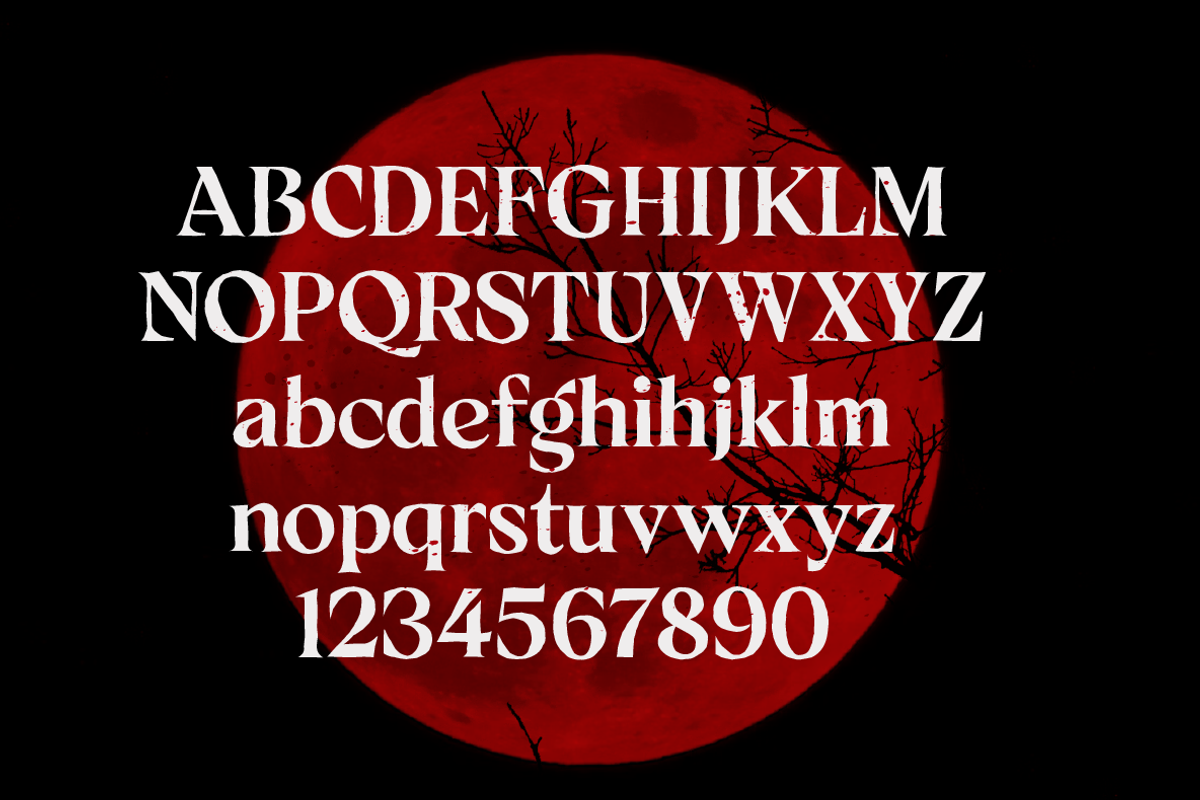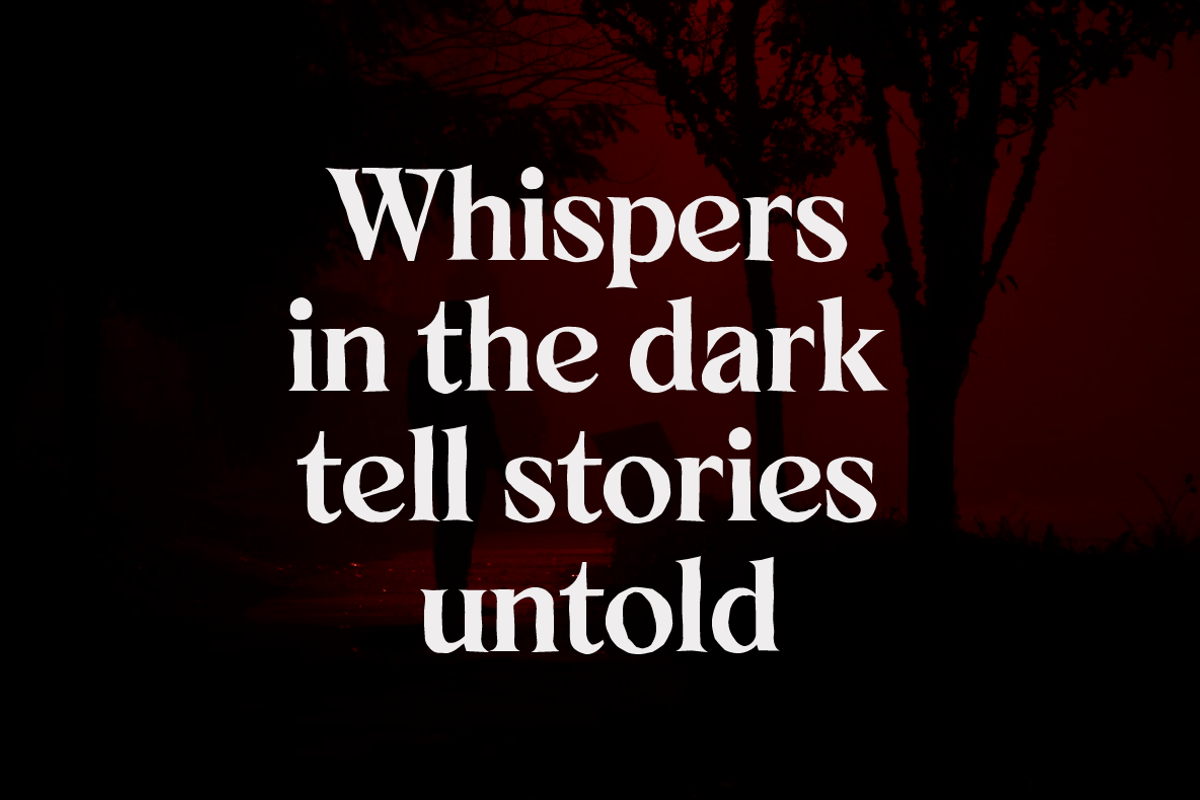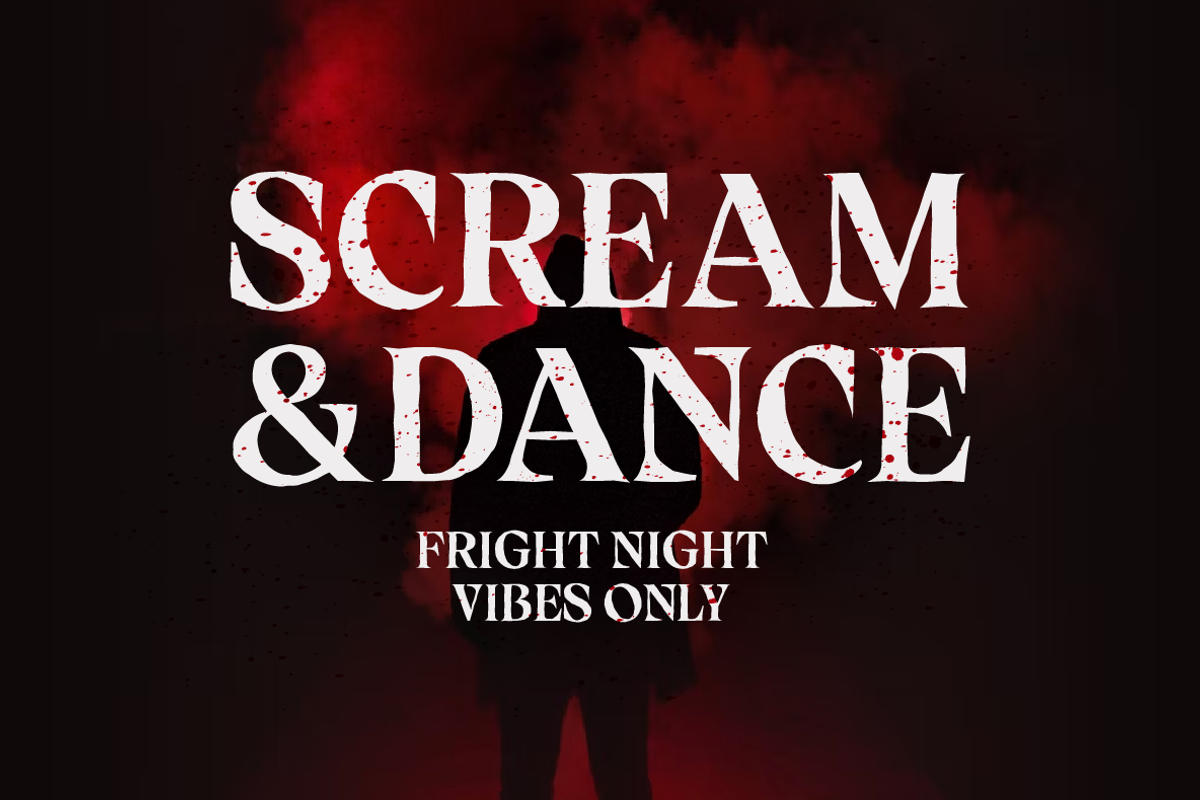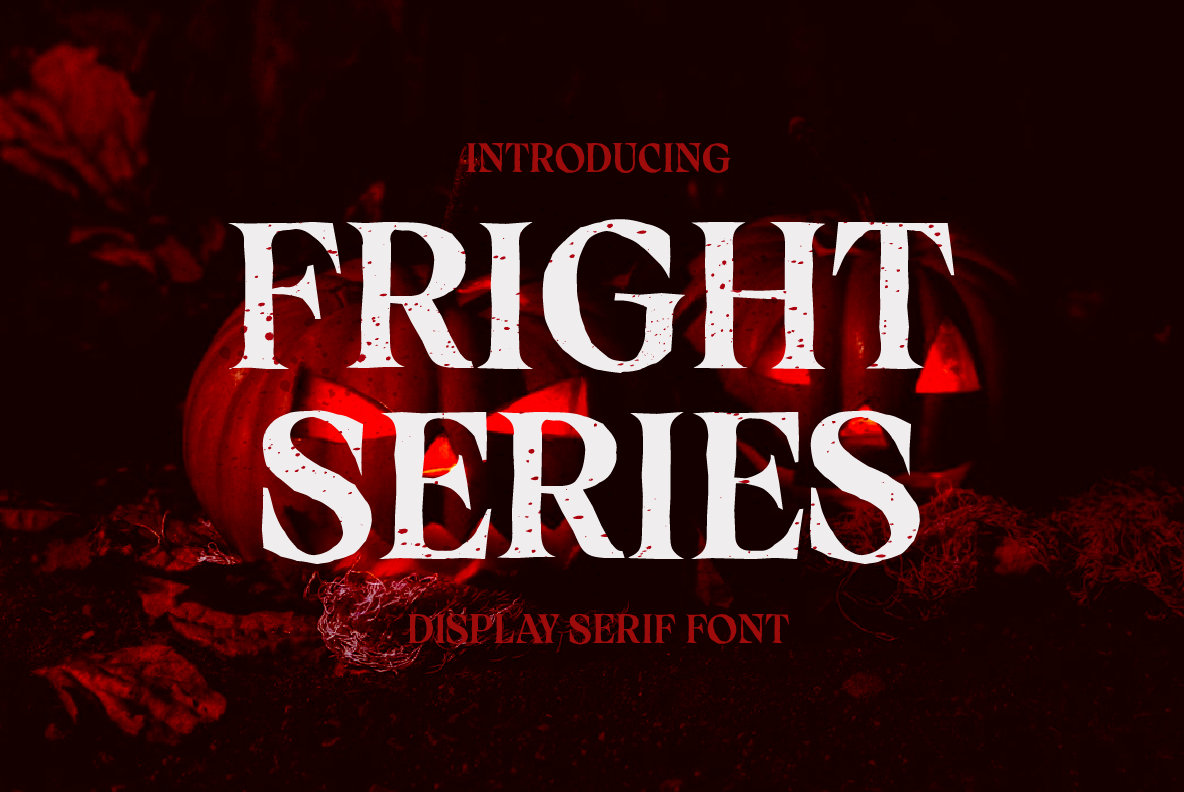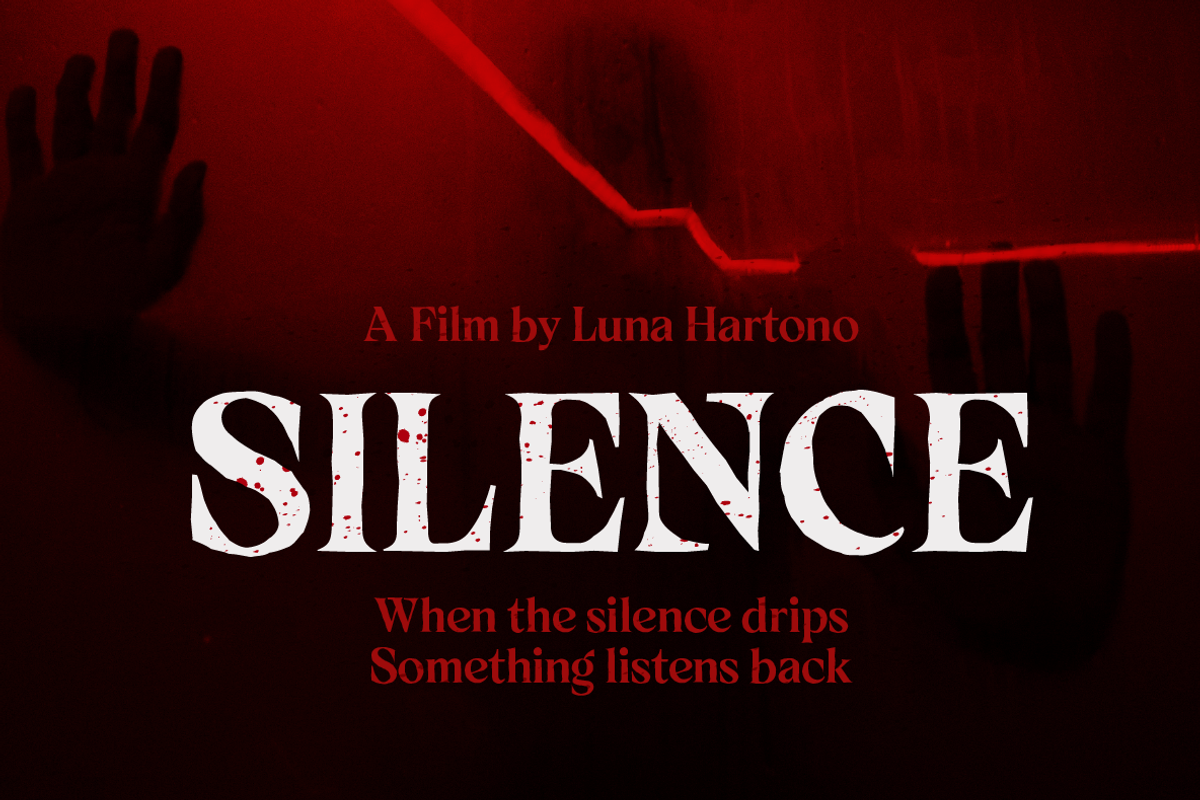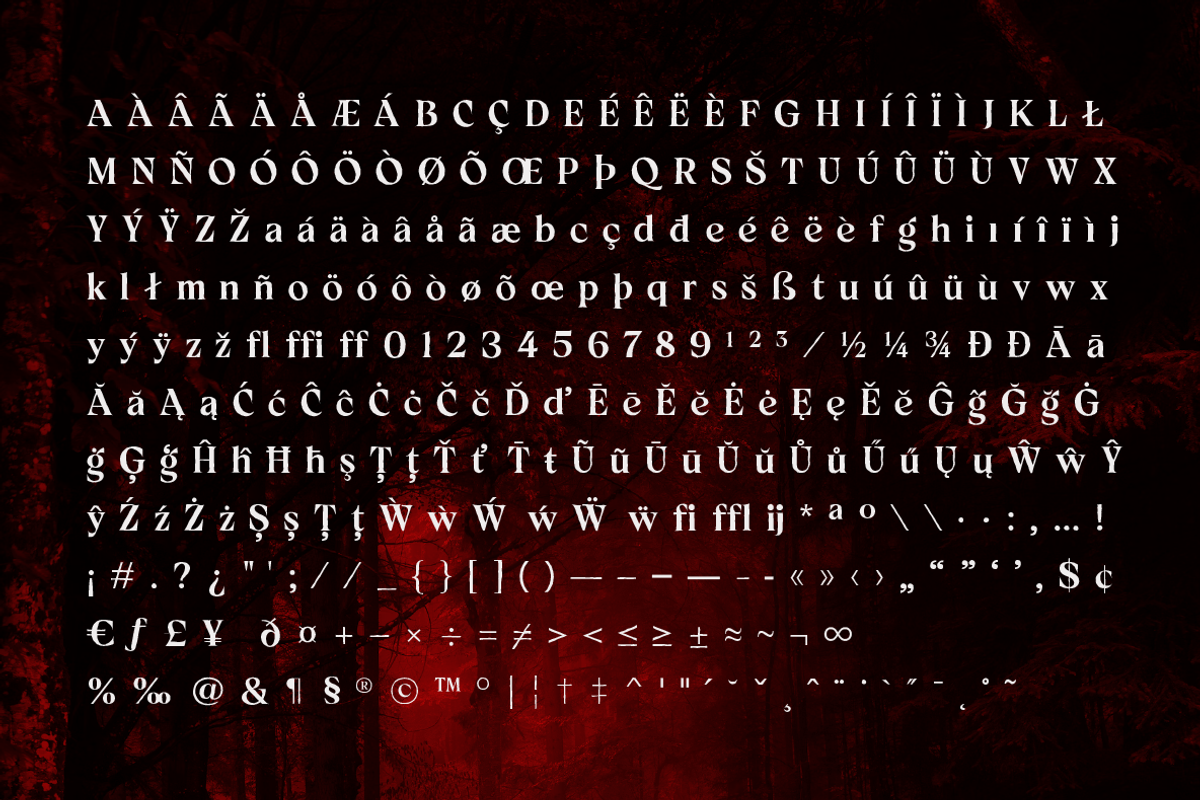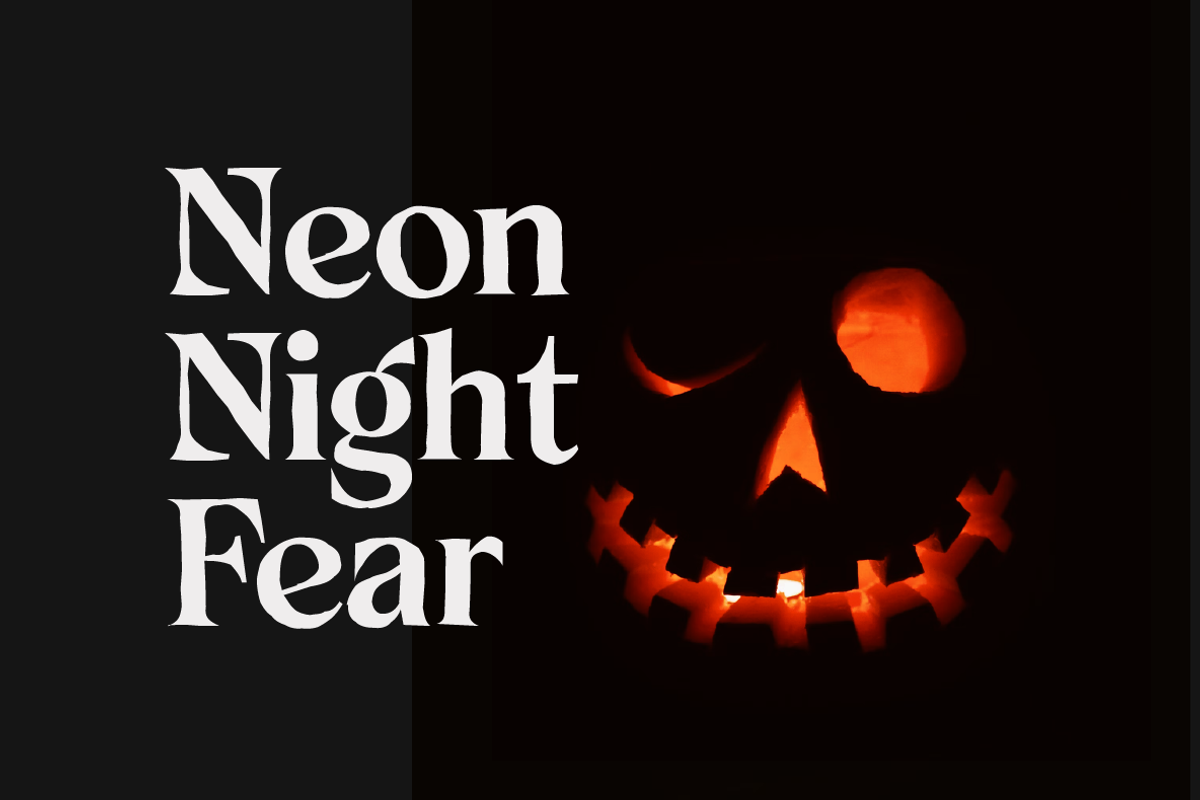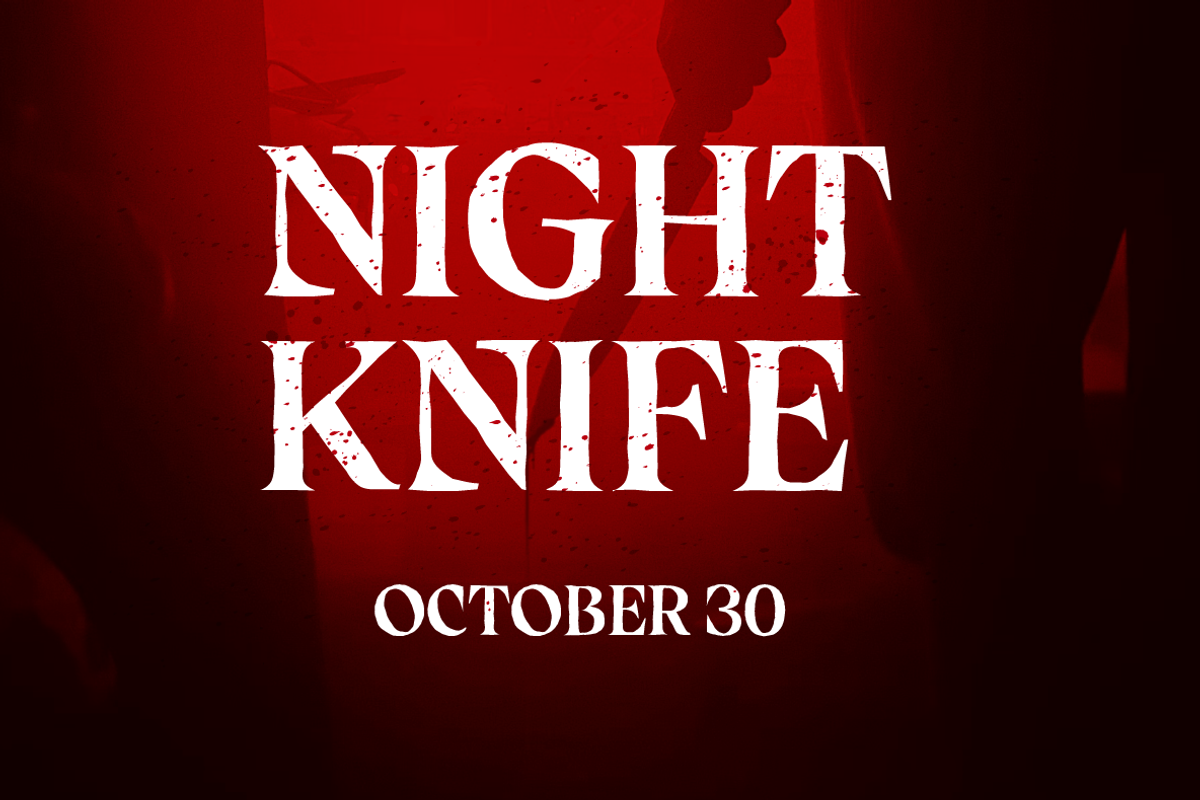
Fright Series – Horror Serif Font
Fright Series is a serif font with horror and creepy vibes, perfect for dark and thrilling design projects. Featuring sharp edges and spooky details, this font brings a chilling yet stylish look to your titles and branding.
Ideal for horror movie posters, Halloween invitations, eerie book covers, and scary logo designs, Fright Series combines classic serif elegance with a haunting atmosphere. Make your design stand out with Fright Series — a perfect serif font for horror, Halloween, and creepy-themed projects.
- Uppercase & Lowercase Letters
- Horror and Creepy Style
- Great for Titles & Display Use Make your design stand out with Fright Series — the perfect serif font for horror, Halloween, and creepy-themed designs.